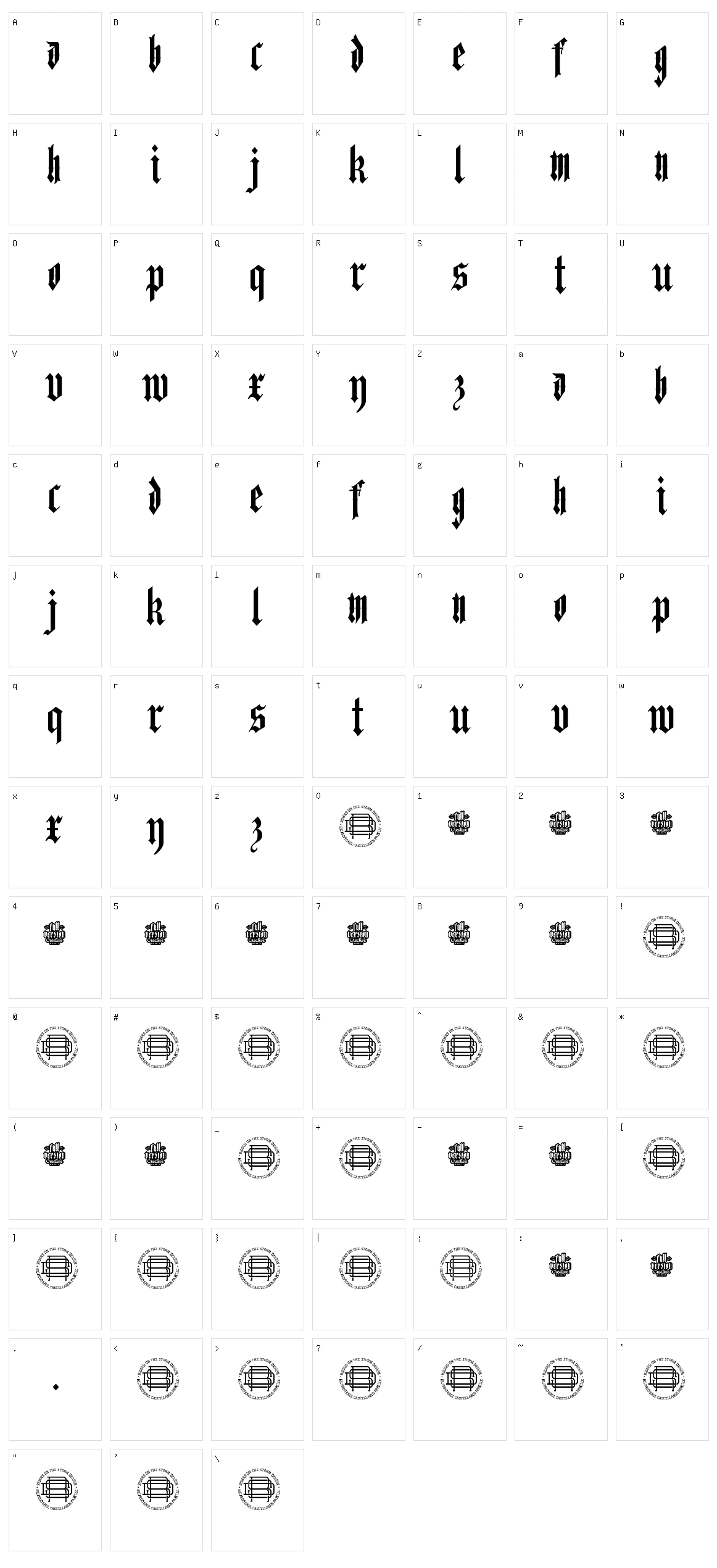
The free font Hand Of Doom is carefully designed by Richie Mx, showcasing a thoughtful balance of creativity and usability and belongs to the Gothic font family. When you download the ZIP file, it contains only 3102.2 KB of font files, making it lightweight and quick to download. Please review the license details below to understand permitted usage and distribution rights. If license information is not available, we recommend using this font for personal projects only or contacting the author directly for commercial usage permissions.